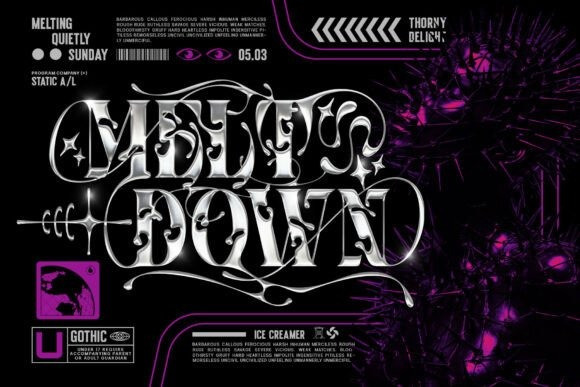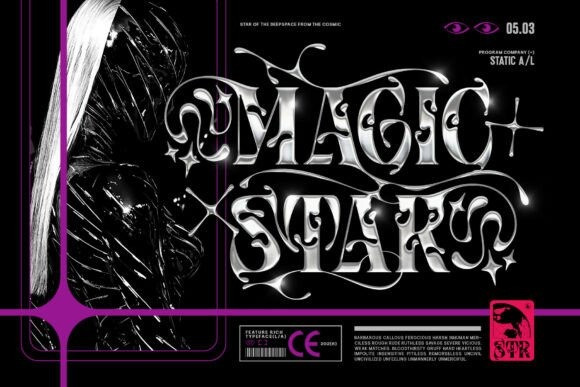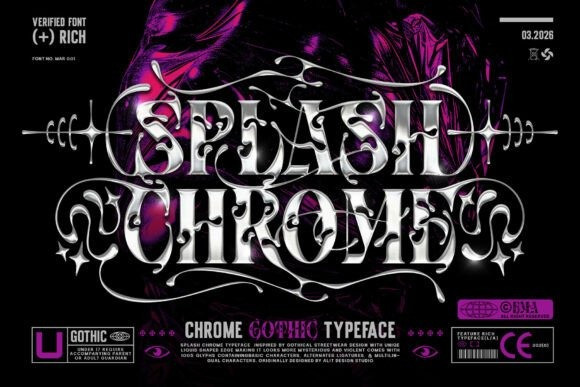
Splash Chrome Font
Splash Chrome Font is a masterclass in modern aesthetics, blending the fluidity of liquid mercury with the sharp, aggressive precision of cyberpunk futurism. Designed with dynamic, flowing strokes and razor-sharp terminals, it captures the essence of speed, tech, and “chrome-culture.” Whether you are aiming for a Y2K revival, a high-tech streetwear vibe, or a futuristic automotive look, this font delivers a polished, metallic edge that demands attention.